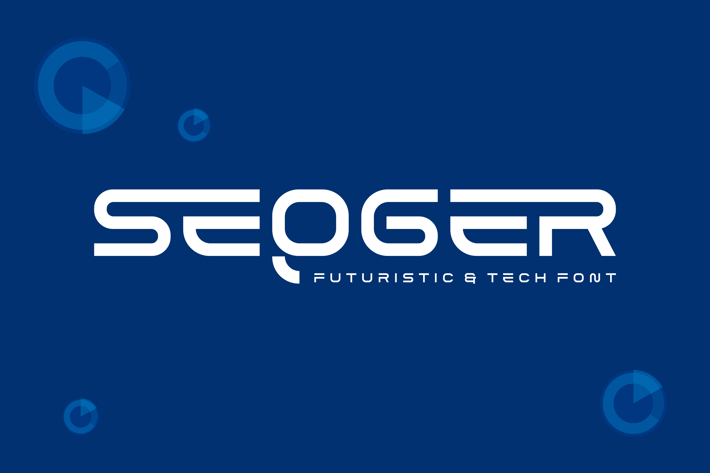
Seqger - Futuristic And Techno Font
Introducing our new product Seqger Font - Futuristic And Techno Font
Seqger Font - Modern Font is a bold and authentic display font. The font is suitable for any branding project like logo,
t-shirt printing, esport, and many more. outstanding in a wide range of contexts.
Seqger Uppercase
Seqger Ligature